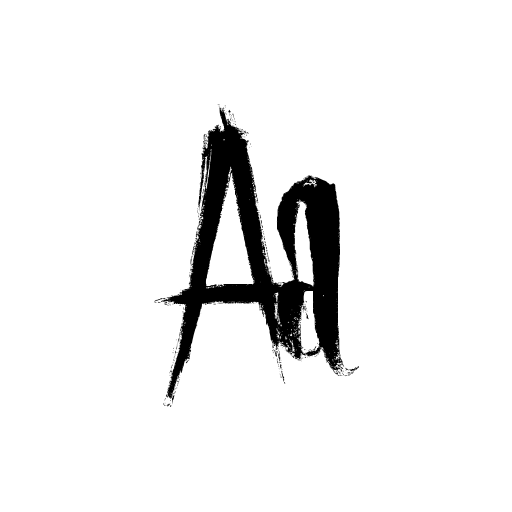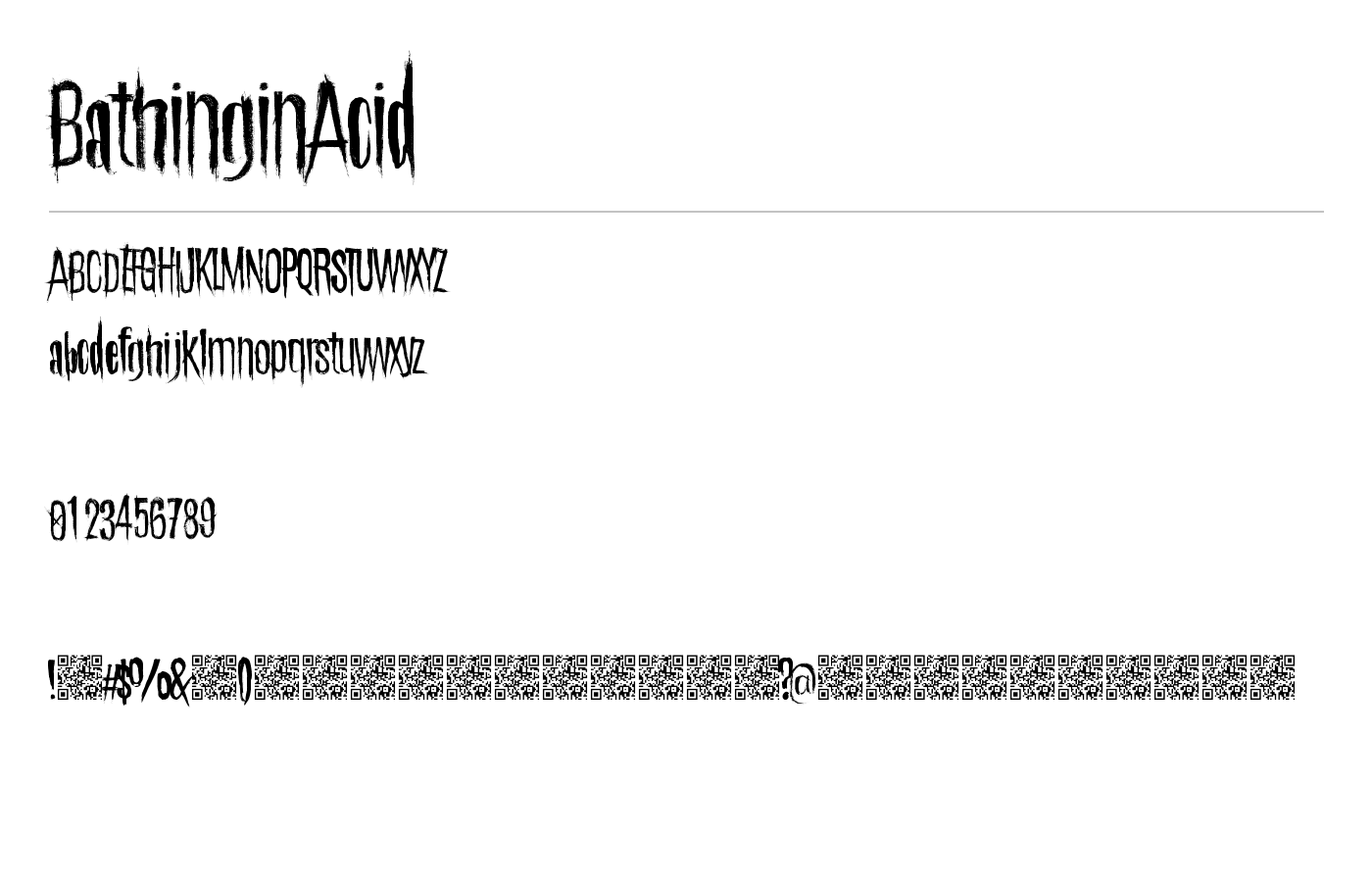
BathinginAcid is a narrow, condensed sans serif display font with a distressed, grunge texture that gives it an edgy, rebellious vibe. Its tall, irregular strokes and rough, uneven edges make it ideal for creating a bold, striking impact in creative projects like posters, alternative music branding, and Halloween-themed designs. This font works best in larger sizes where its unique, chaotic character can truly stand out.
BathinginAcid Font
About BathinginAcid Font
| Font family | BathinginAcid Font |
| Designer | Max Infeld Xerographer Fonts |